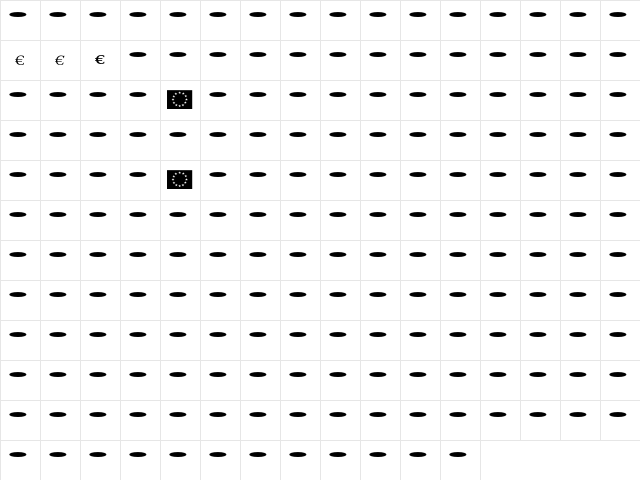
Disturbance Euro
Design Context for Disturbance Typeface
Disturbance takes a measured approach to typography — its balanced proportions and neutral character make it a reliable workhorse for both digital and print work.